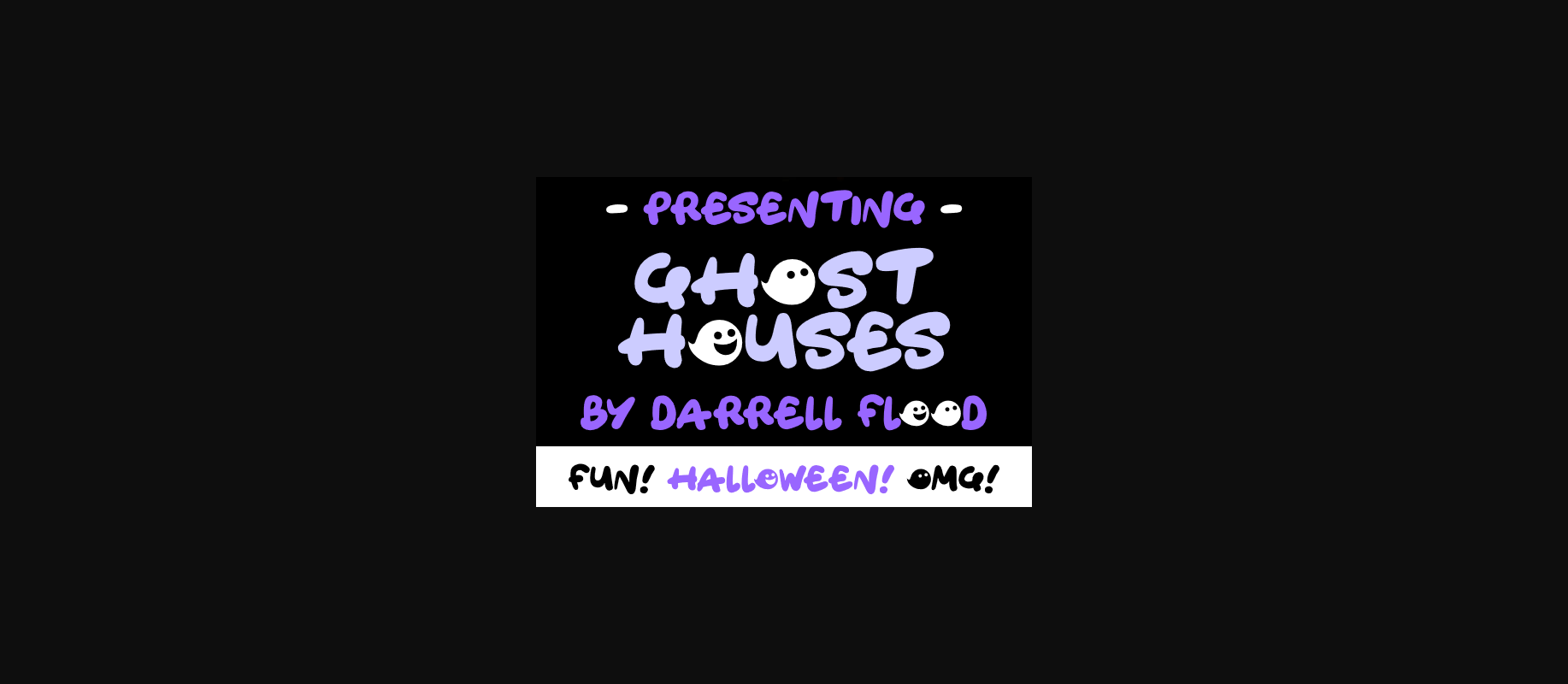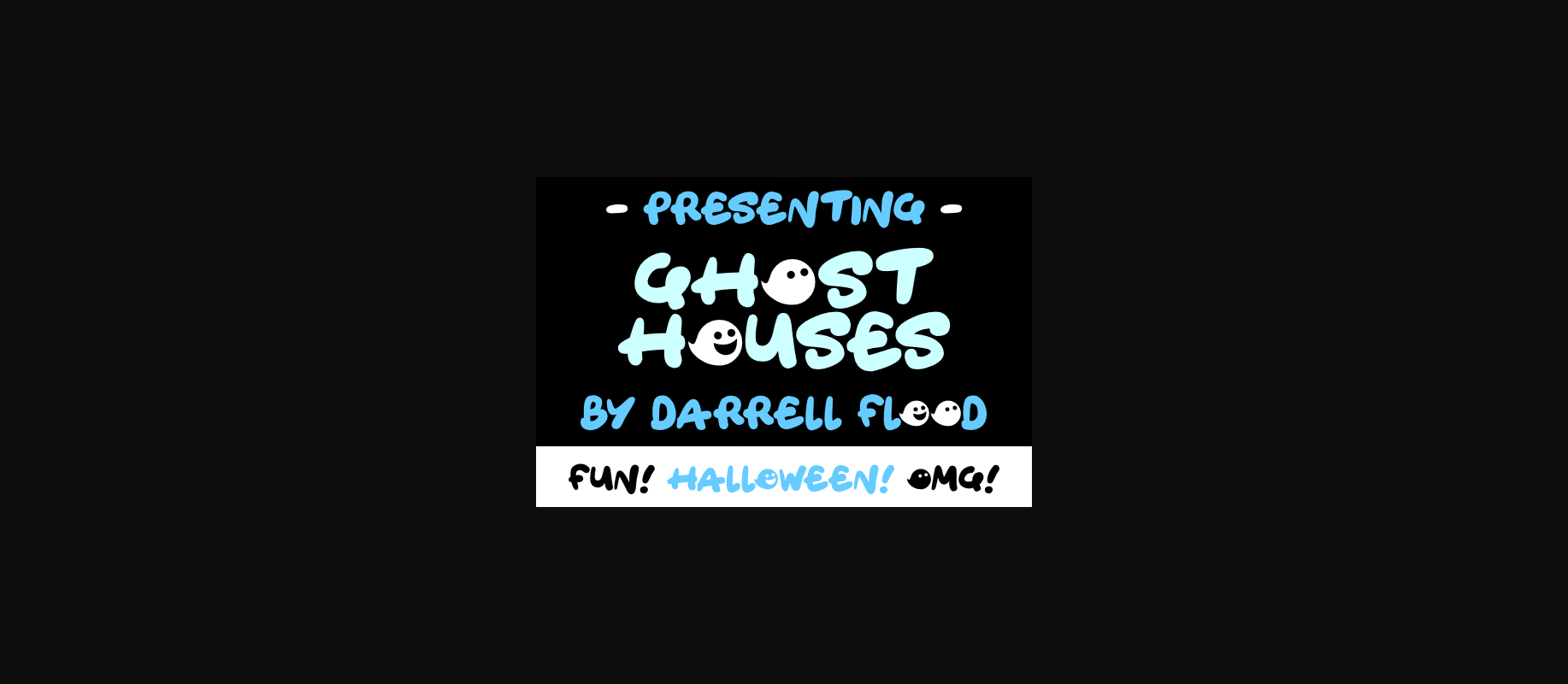
Ghost Houses Font
About Ghost Houses Font
A super cute hand-drawn font in a spooky Halloween style. Perfect for seasonal themes, ghostly encounters and family friendly fun!